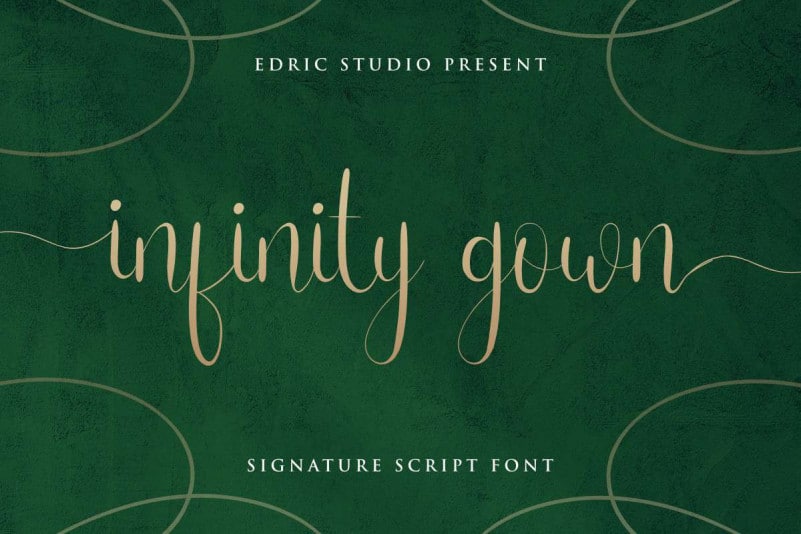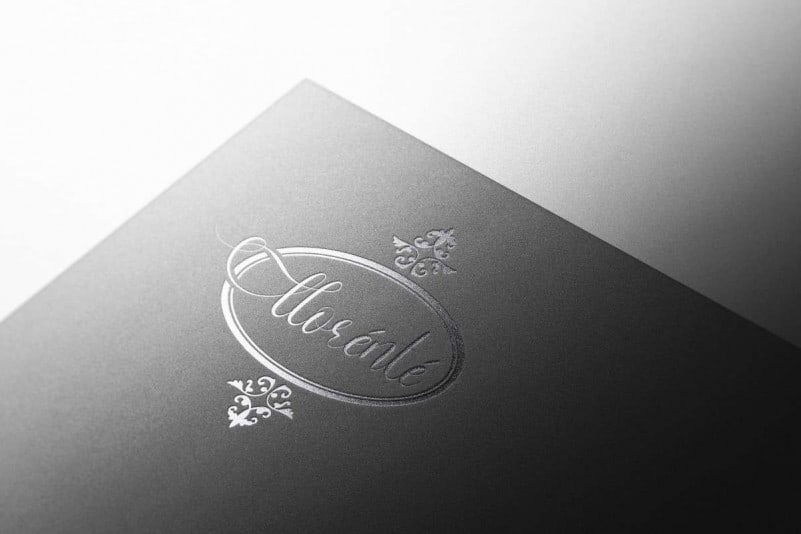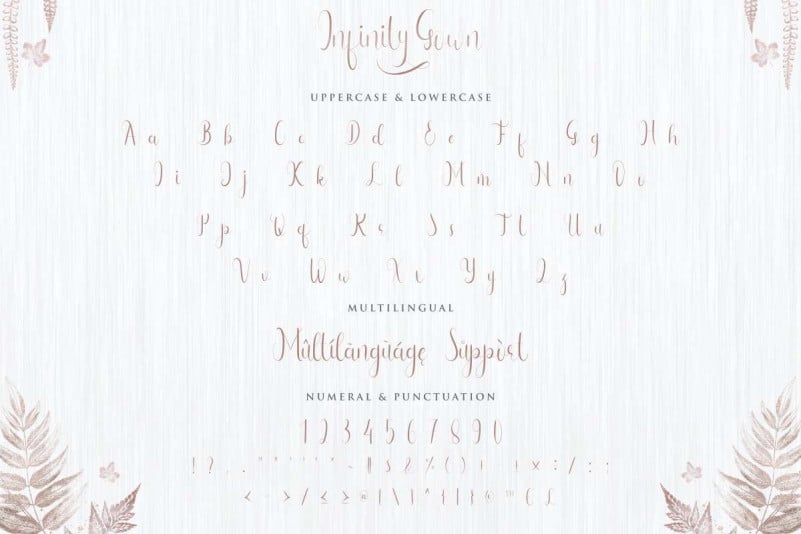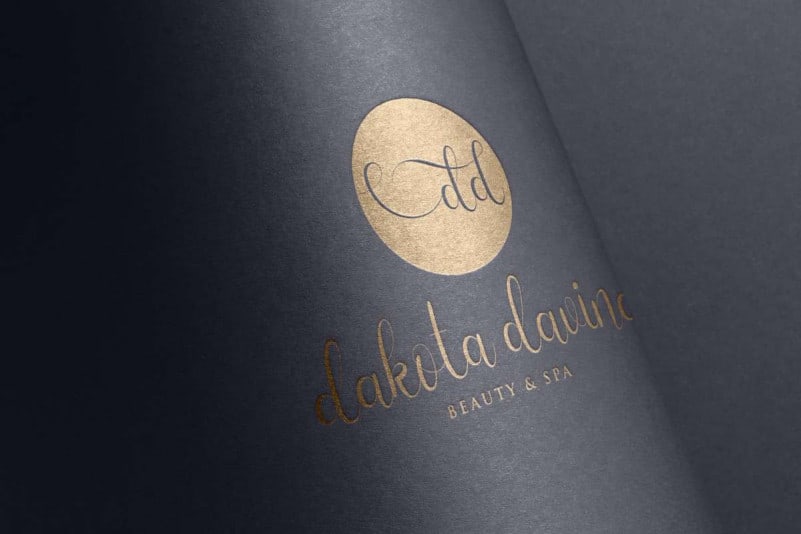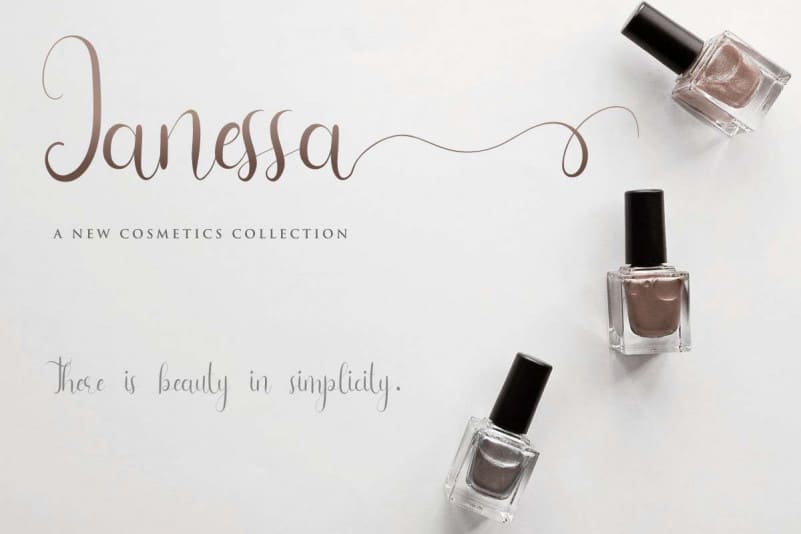
Infinity Gown Calligraphy Font
Infinity Gown Calligraphy Font is an exclusive display script typeface with manual hand pen style. This font has a stunning characters set, perfectly managed with well spaced and kerning. The theme style of this font will elegant, vintage, stylish, sophisticated and classic professional Calligraphy style. Infinity Gown Font
Infinity Gown Calligraphy Font will be great for any projects including : branding, logo, stationery, business card, signage, flyer, brochure etc. Almost all industries will be match for this typeface: wedding, events, real estate, architect, law firm, florist, gardening, makeup artist, travel, hotel, musician etc.